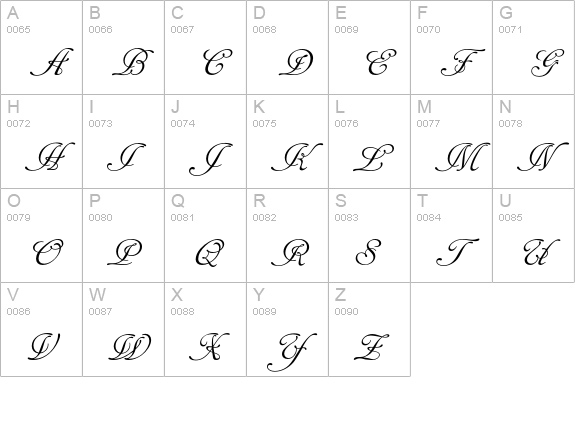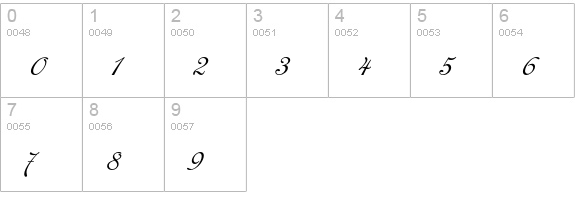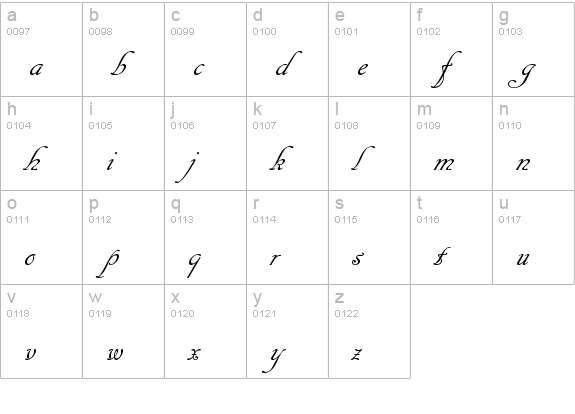
Cancellaresca Script Std Font Details
Cancellaresca Script Std is a stunning and elegant font that exudes sophistication and charm. Its intricate details and flowing curves make it perfect for adding a touch of luxury to any design project. This versatile font can be used for a variety of purposes, from wedding invitations to branding materials. What's even better is that Cancellaresca Script Std is available for free download at FontsMarket.com. This means you can enhance your designs with this beautiful font without any cost. So why wait? Download Cancellaresca Script Std now and elevate your projects with its timeless beauty.